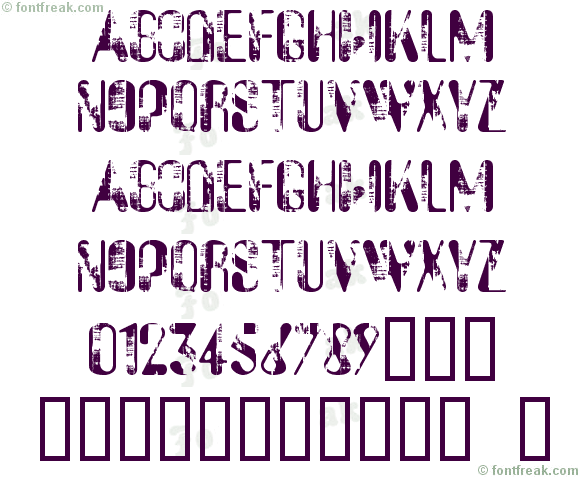
Sucata Spacial
Sucata Spacial, crafted by Marcio Hirosse, is a striking display font that fuses creativity with a modern edge. This unique typeface boasts a distinctive aesthetic, characterized by its uneven stroke weights and intriguing contrast. The letters exhibit a playful yet bold demeanor, featuring irregularities that add a handcrafted feel, making it perfect for projects that require a touch of personality. The spacing is thoughtfully designed to ensure readability while maintaining an engaging visual flow.
This font shines in various applications, particularly in areas where a bold statement is desired. It is an excellent choice for eye-catching movie posters that aim to capture attention at first glance. Additionally, Sucata Spacial works wonders in restaurant menus, where its unique character can enhance the dining experience and reflect the establishment's vibe. Graphic designers will also find it suitable for branding projects, especially for businesses seeking to convey an innovative and creative identity. Furthermore, it can elevate social media graphics and content creation, making posts stand out in a crowded digital landscape.